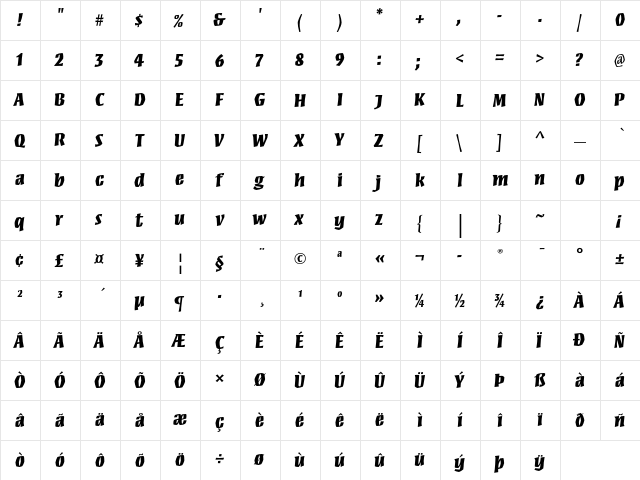
Mezz Std Black
| Designer | Michael Harvey |
Design Context for Mezz Std Typeface
Mezz Std offers clean, dependable letterforms without strong stylistic allegiance, making it a practical choice for designers who need flexibility.